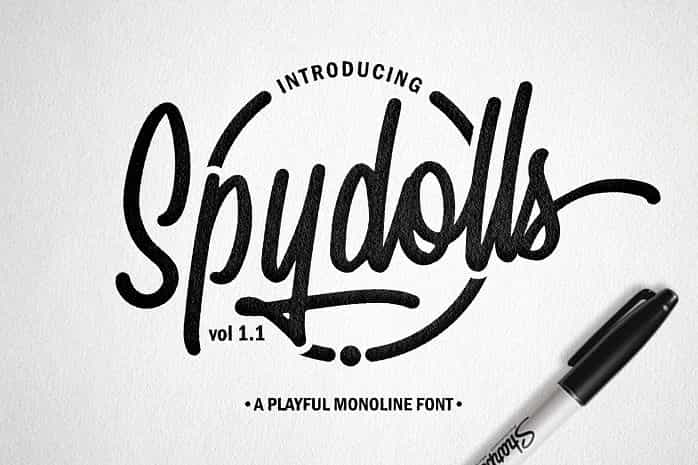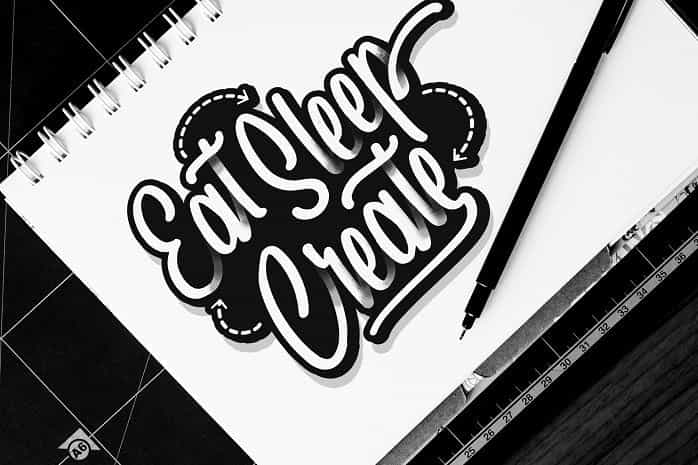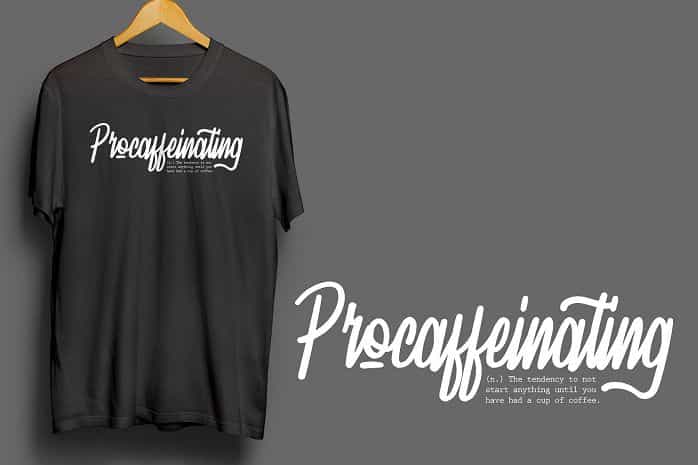
Introducing Spydolls Font. Spydolls Script Font is a creative monoline script font that imitates the handwriting of marker pen and it is very good for your design projects. You can use it for: Logo design, t-shirt, branding, prints and other things are the creative works that you can get done. A total of 600 glyph which is a great choice for each glyph multilingual language support comes with the standard European made it not difficult to use.